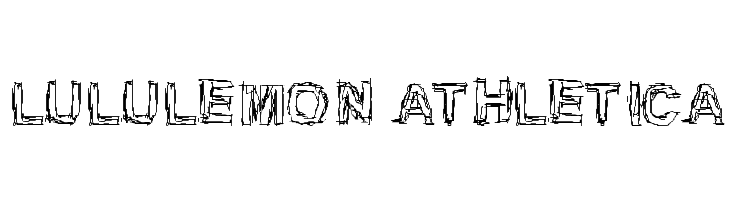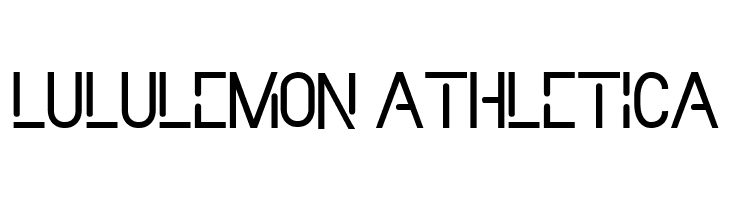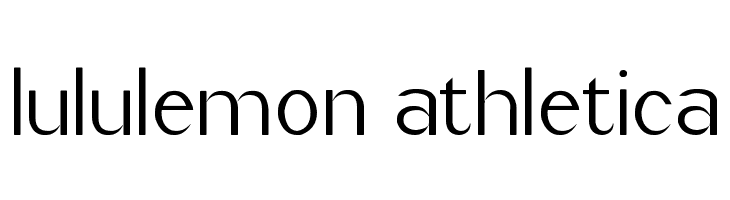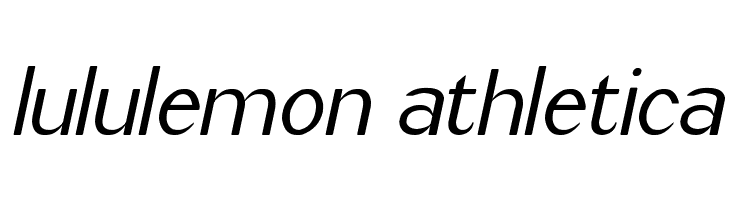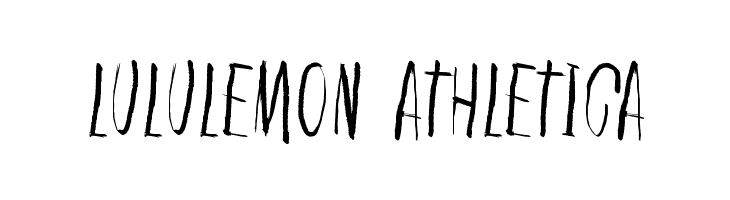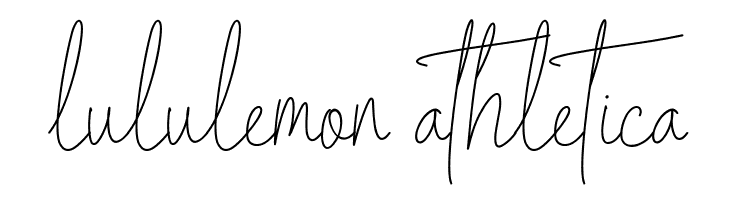
• Imelda Medium
A modern, clean sans-serif font with balanced spacing and clear characters.
• Imelda Medium Italic
A sleek, modern italic font with a dynamic and elegant style.
• Imelda Regular
A modern, sans-serif font with clean lines and balanced proportions.
• IMMORAL PACT
• Imnova St
A bold, geometric font with a condensed and modern style.
• In Collection
A modern, geometric font with bold, clean lines and uniform thickness.
• In der Zeit
A bold, brush-style font with a dynamic and energetic appearance.
• In the deep dark woods
A hand-drawn, expressive font with elongated, irregular strokes.
• Inch 75
• Indesign Signature
A casual, handwritten-style font with elongated, fluid strokes.